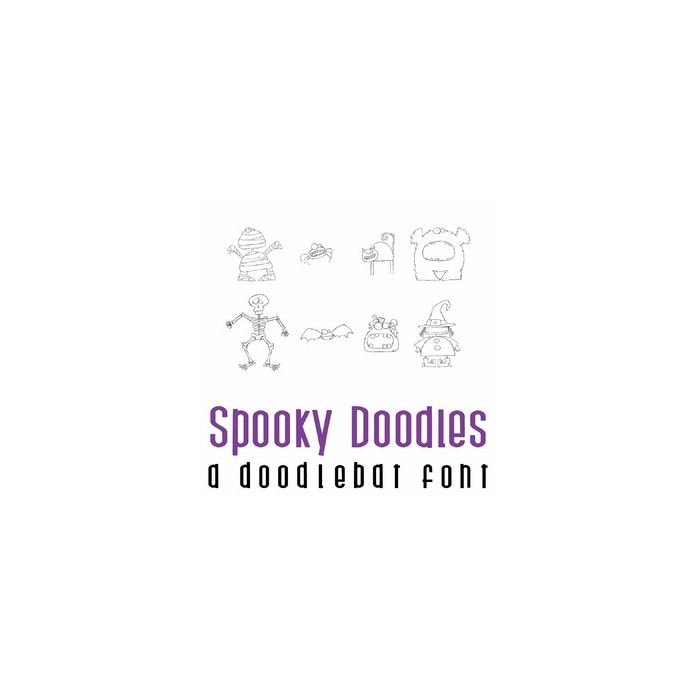
This fun doodle style doodlebat font features 36 spooky Halloween doodles. Perfect for cards, crafts, gifts, decor, scrap book pages, planner stickers and more! Dingbats are A-Z and 0-9.